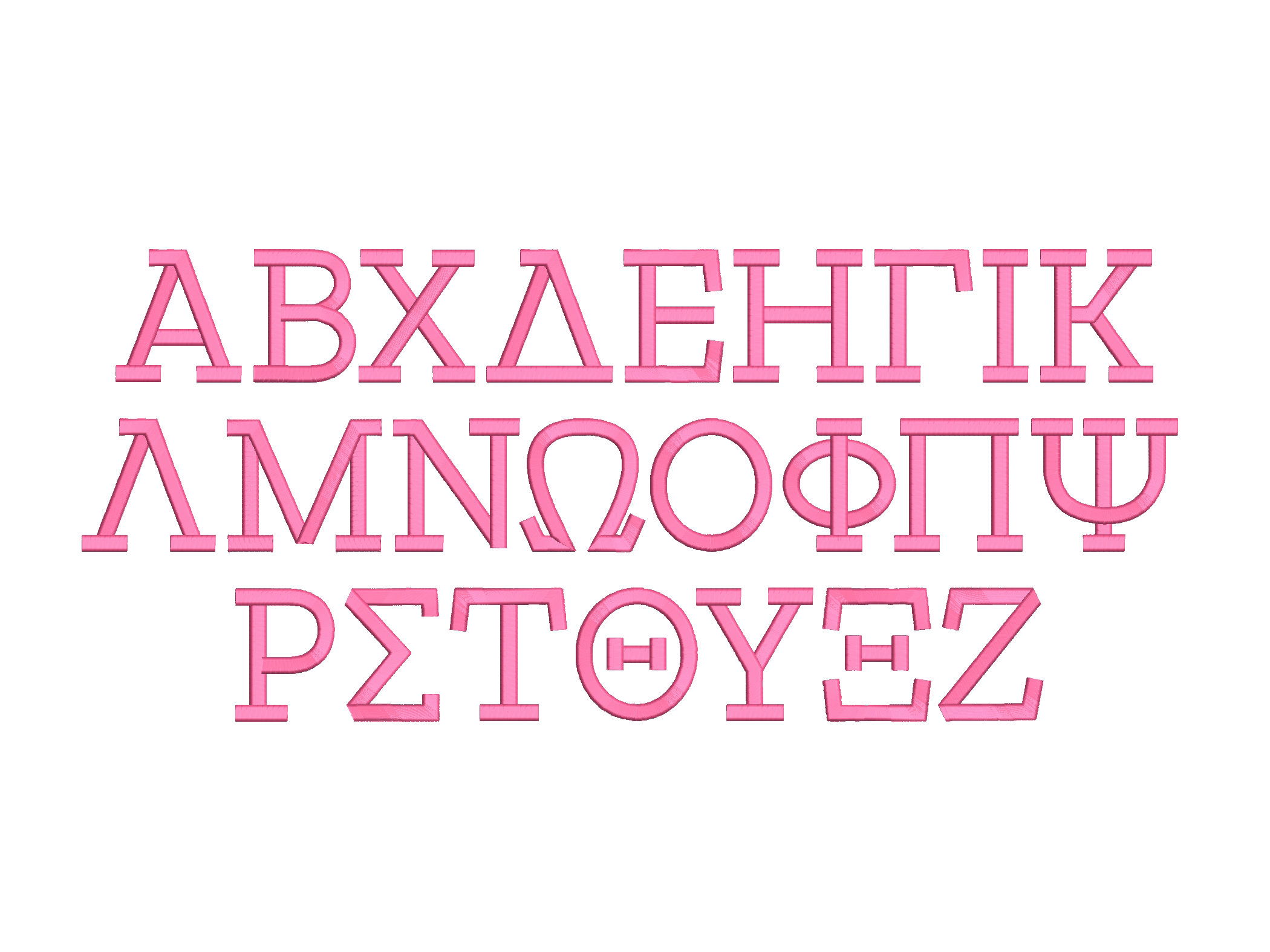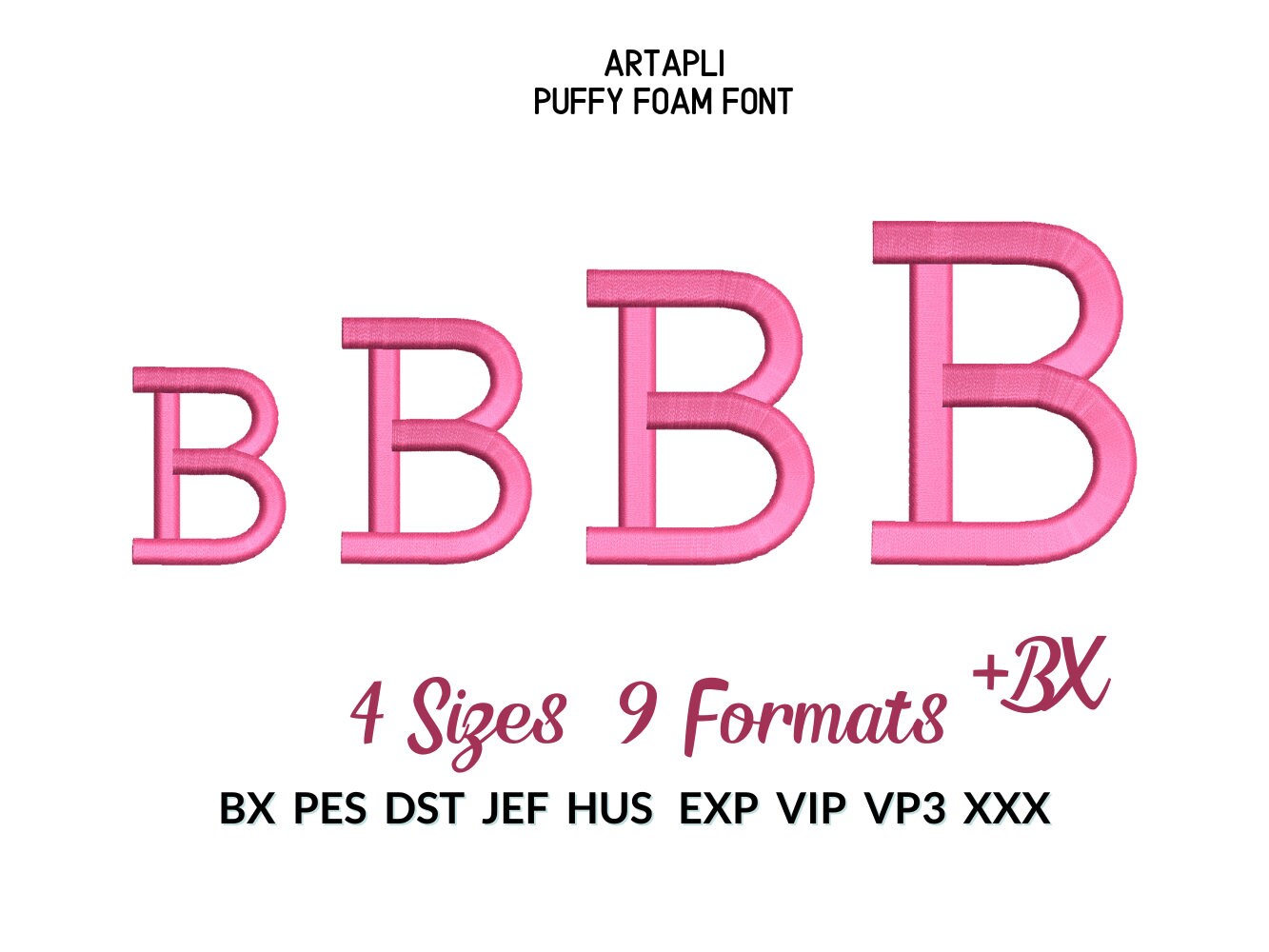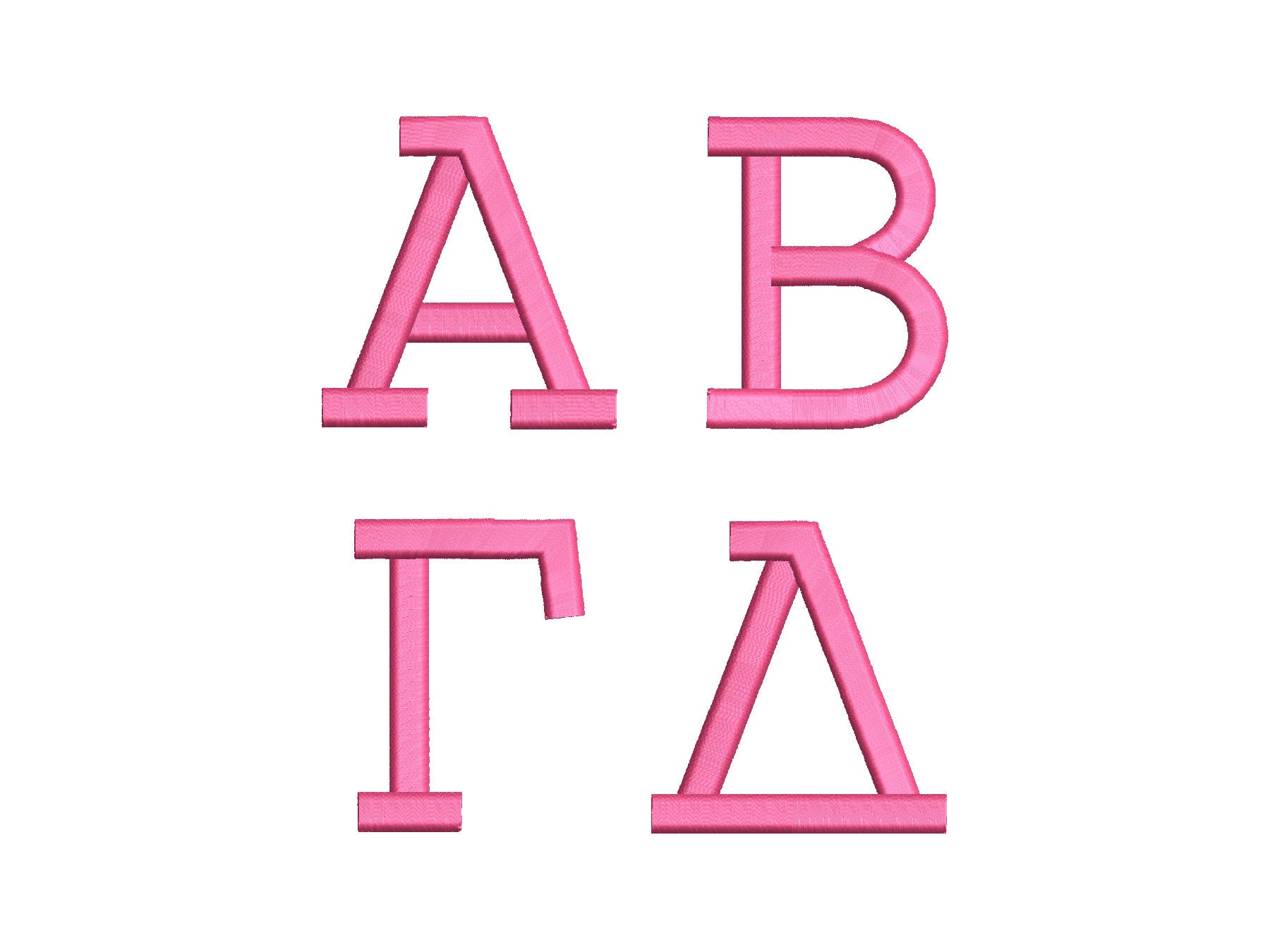
Puff Embroidery Greek FONT Alphabet machine embroidery designs 3D raised Puffy Foam monogram Block Greek Alphabet 1.6, 2, 2.4, 2.8 inch, BX included
Whole Greek alphabet, 24 letters.